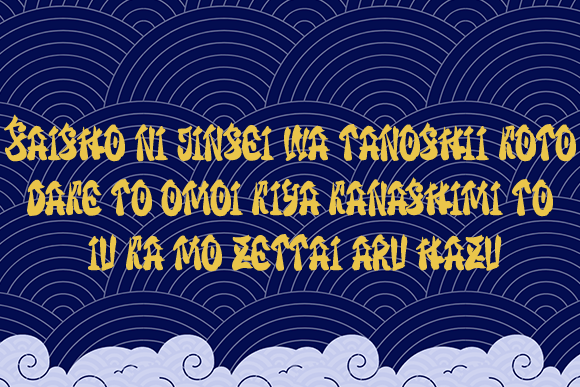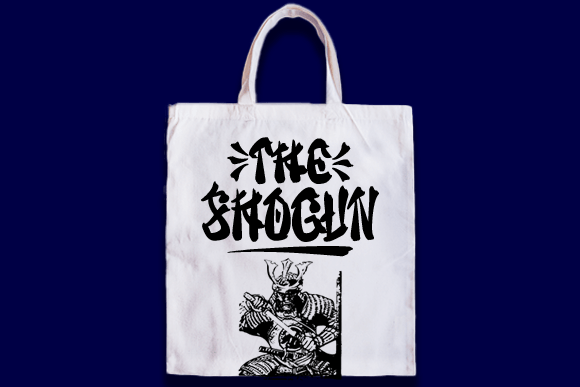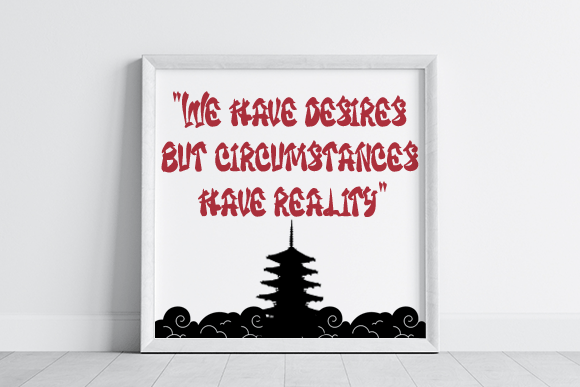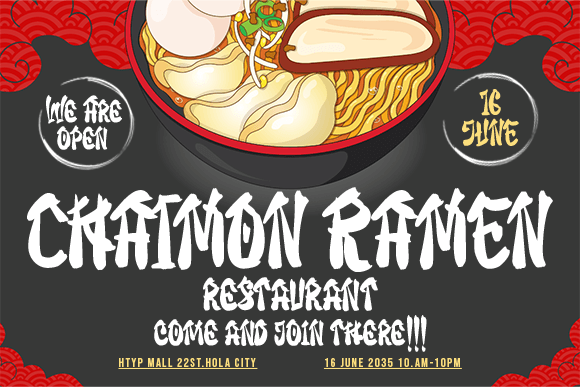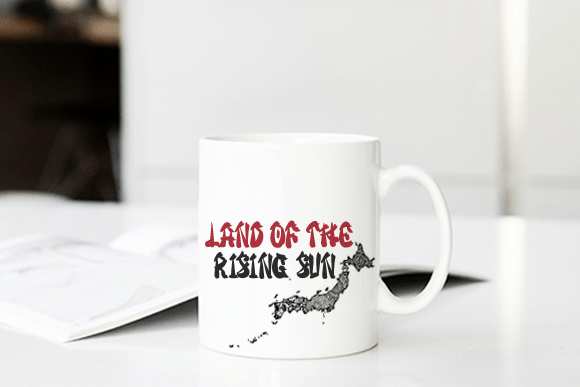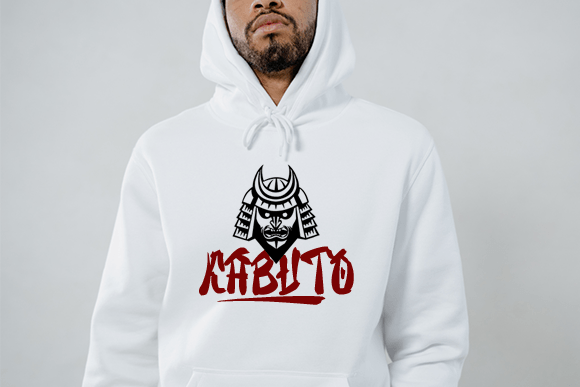
Unleash the Artistic Elegance of the Orient with Chaimon Font
Are you a designer or crafter looking for a unique and captivating font to elevate your creative projects? Look no further than Chaimon, a striking display font inspired by traditional Japanese calligraphy. This typographical treasure is sure to rejuvenate your food menus, posters, flyers, and print media, offering mesmerizing visuals that tease the taste buds and spark imagination.
The Inspiration Behind Chaimon
Chaimon font is deeply rooted in the ancient art of Japanese calligraphy, also known as Shodou. This traditional form of artistic writing has been a cornerstone of Japanese culture for centuries, characterized by its elegant brushstrokes, harmonious balance, and precise technique. The creators of Chaimon font have skillfully distilled the essence of Shodou into a modern, digital format, allowing designers to harness the beauty and sophistication of this timeless art form.
Elevate Your Food Menus with Chaimon
Food menus are an essential part of any restaurant or food-related business, and Chaimon font offers a unique opportunity to make yours stand out. With its mesmerizing visuals and artistic elegance, Chaimon can transform your menus into stunning works of art that tease the taste buds and entice customers. Whether you’re a sushi restaurant, a bakery, or a fine dining establishment, Chaimon font is sure to add a touch of sophistication and refinement to your branding.
Beyond Menus: Unlocking the Full Potential of Chaimon
While Chaimon’s application in food menus is undeniable, its potential extends far beyond. This versatile font can be used to create striking posters, eye-catching flyers, and polished print media that showcase your brand’s personality and style. With Chaimon, you can:
- Design captivating posters that grab attention and convey your message
- Create stunning flyers that showcase your products or services
- Elevate your print media, such as brochures, catalogs, and magazines, to new heights of visual sophistication
The Benefits of Using Chaimon Font
So why choose Chaimon font for your design projects? Here are just a few benefits you can expect:
- Unique and captivating design: Chaimon’s artistic elegance and striking visuals are sure to set your designs apart from the competition
- Cultural significance: By incorporating traditional Japanese calligraphy into your designs, you can add a touch of cultural sophistication and refinement
- Versatility: Chaimon font can be used in a wide range of design applications, from food menus to posters and print media
- Ease of use: Chaimon font is easy to read and works well in both digital and print formats
Tips for Using Chaimon Font Effectively
To get the most out of Chaimon font, here are a few tips to keep in mind:
- Use it sparingly: Chaimon’s bold and striking design makes it best suited for headlines and titles. Use it sparingly to create visual impact
- Pair it with complementary fonts: Combine Chaimon with simpler fonts to create visual contrast and add depth to your designs
- Experiment with colors and textures: Chaimon font looks stunning in a range of colors and textures. Experiment to find the perfect combination for your design
Chaimon font is a typographical treasure that offers designers and crafters a unique opportunity to infuse their creative projects with the artistic elegance of the Orient. With its mesmerizing visuals, cultural significance, and versatility, Chaimon is sure to spark your designs and catapult your creative quest to unforeseen summits of brilliance. So why wait? Immerse yourself in the captivating charm of Chaimon font today and discover a world of limitless design potential.